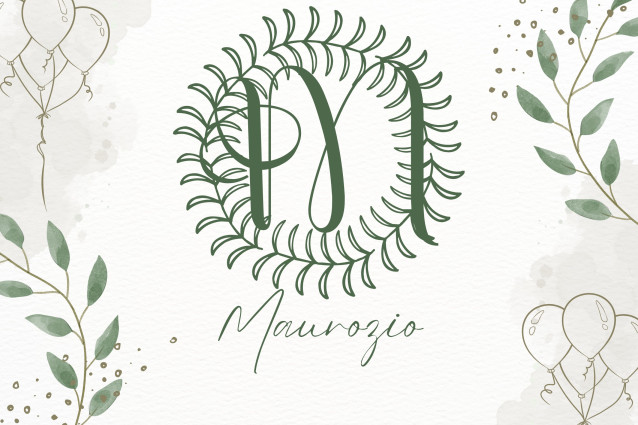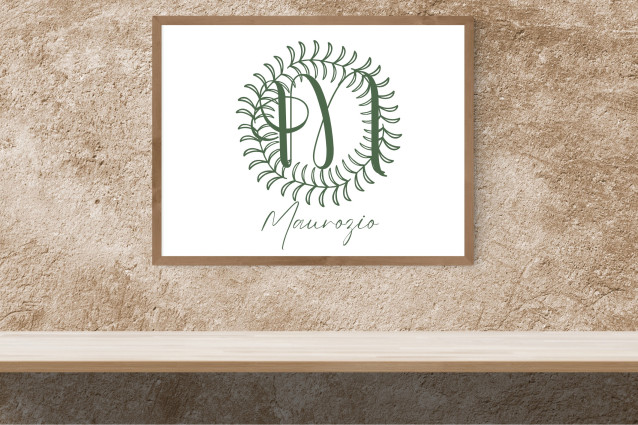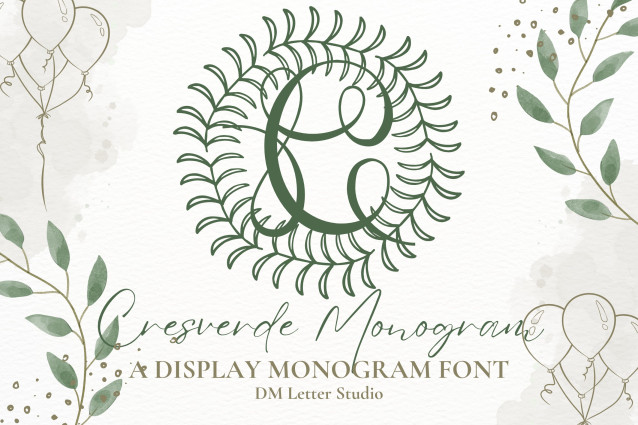
Cresverde Monogram Font
Cresverde Monogram Font is a graceful monogram font that pairs timeless serif lettering with delicate botanical touches. Each uppercase letter is carefully designed with flowing vines and leaf accents, making it ideal for wedding stationery, boutique branding, personalized gifts, and upscale packaging. This font is all about elegance with a natural twist—perfect for creative projects that need both structure and softness.